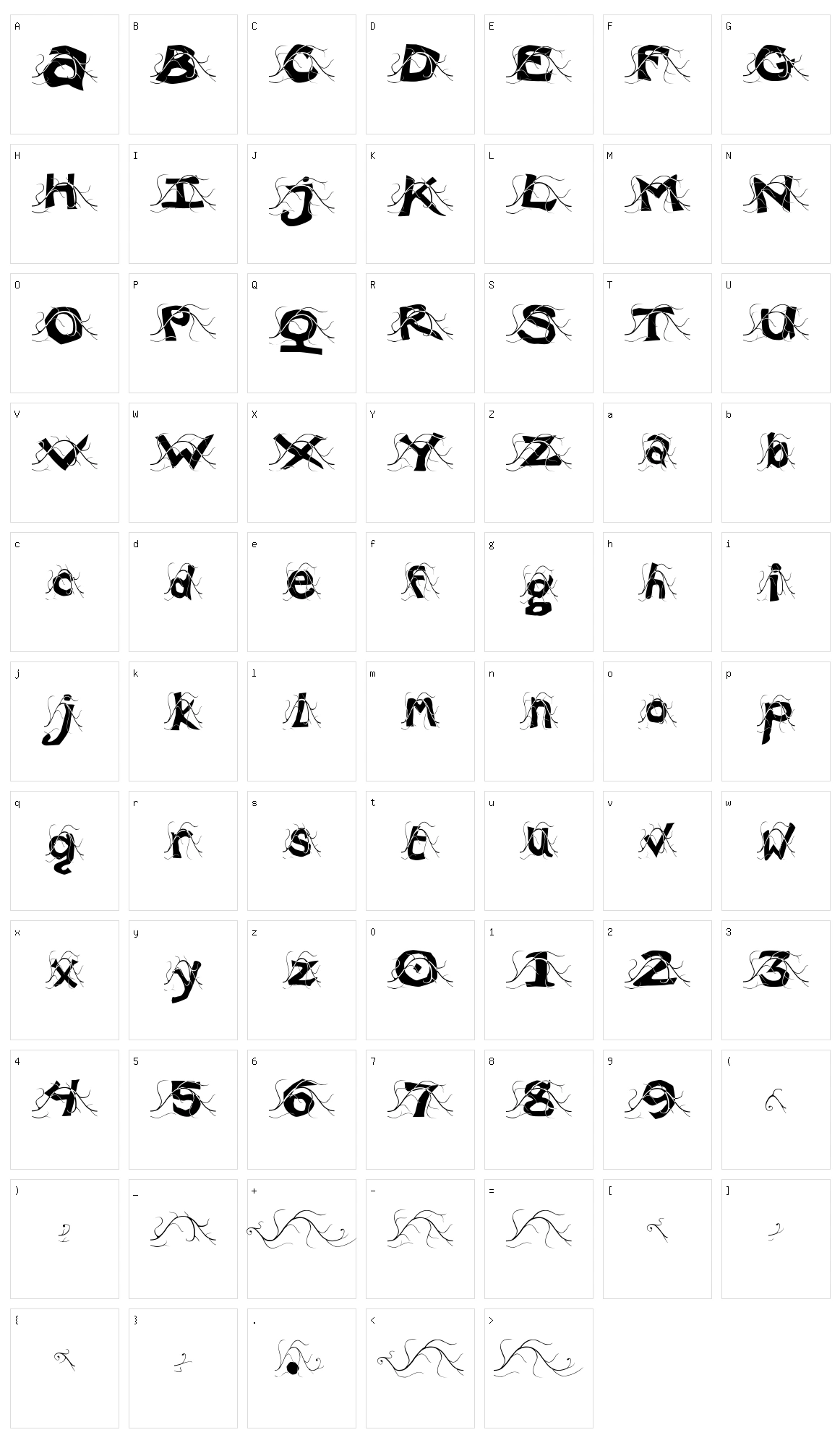
Entangle Mental is a font designed for titles and decorative uses.
It contains some nice OpenType magic to enhance lead-in and trailing
ornaments to words (this requires the OpenType âinitâ and âfinalâ
capabilities to be supported by your software). Similar OpenType
optional ligatures exist for several single-letter words - though
you might wish to use extra spaces around those words for the full
effect.
For those without OpenType or who want more control, the end
ornaments are also mapped to the (,{,[,),},] characters, and
running vine sections are mapped to the -,_,and = characters.